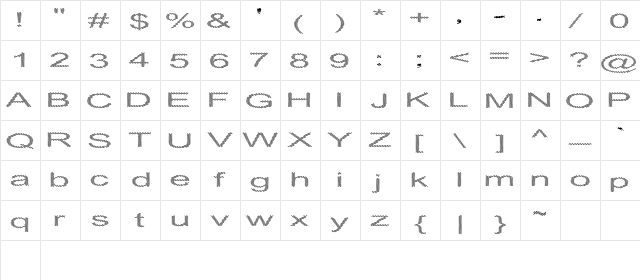
Inningham spread Regular
Design Context for Inningham spread Typeface
Inningham spread takes a measured approach to typography — its balanced proportions and neutral character make it a reliable workhorse for both digital and print work.